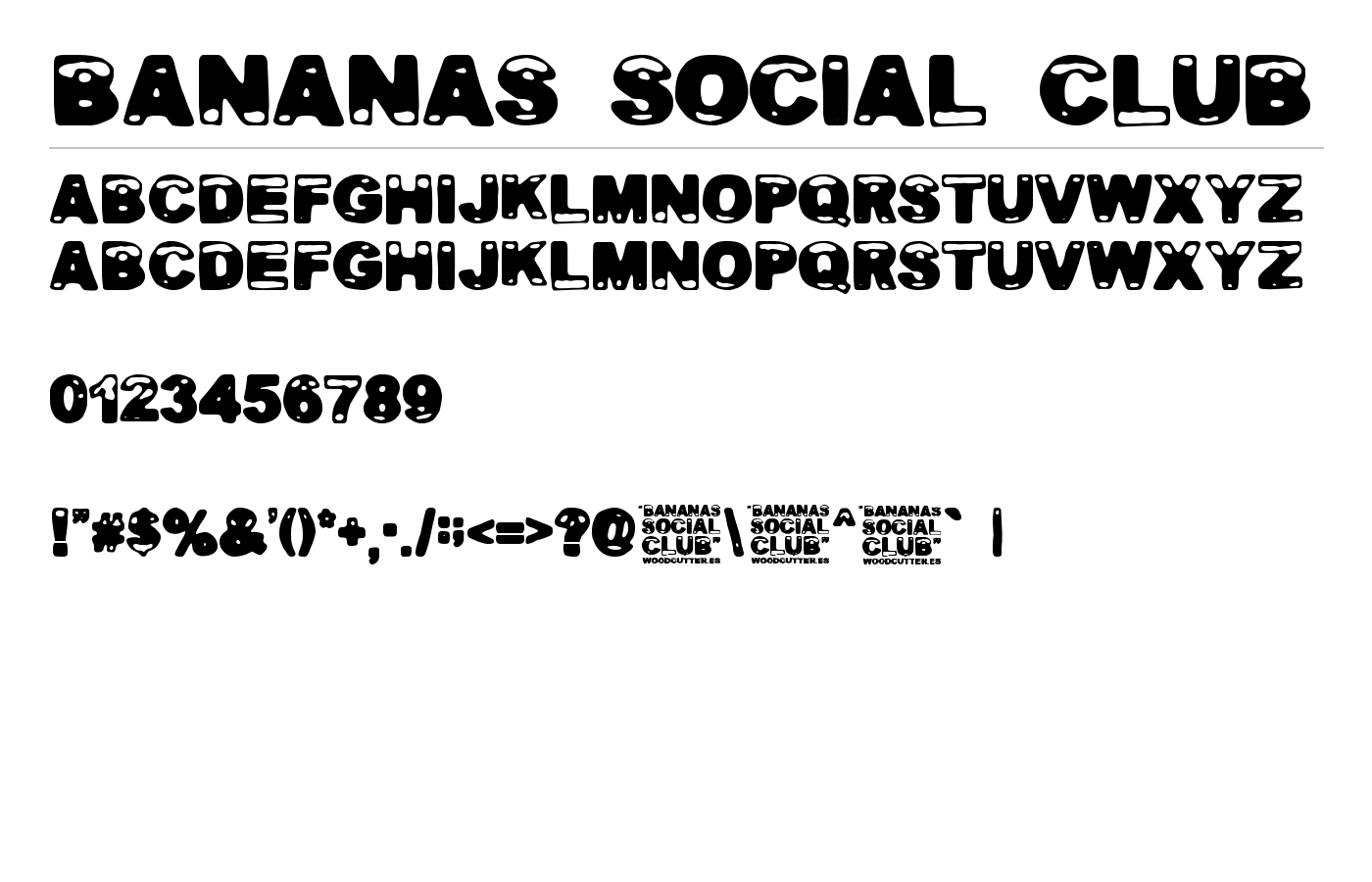
Bananas Social Club is a bold, playful display font characterized by its chunky, rounded letterforms with quirky irregular holes that add a fun, organic texture. With an informal, hand-crafted vibe, this all-caps font is perfect for eye-catching headlines, branding, and creative projects that seek a lively and approachable personality. Its wide, heavy style works best in designs that aim to convey energy and friendliness, such as posters, packaging, or social media graphics.
Bananas Social Club Font
About Bananas Social Club Font